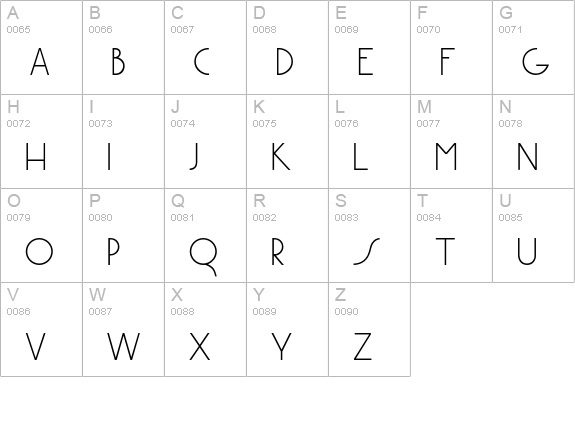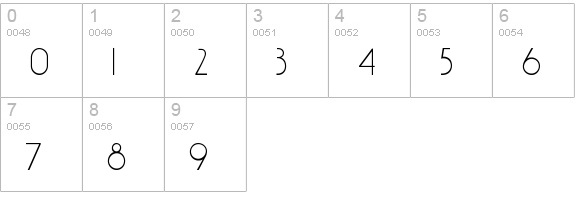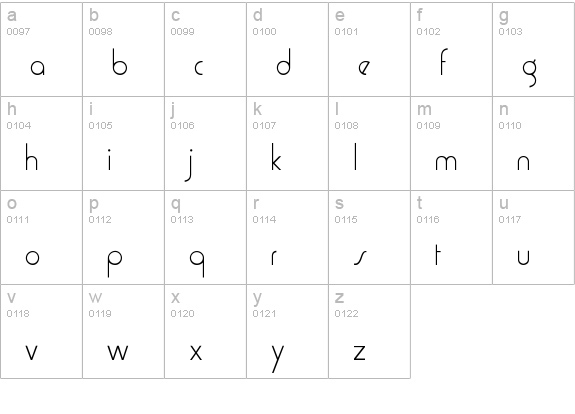
Harpers Font Details
Introducing Harpers, a captivating and versatile font that effortlessly blends elegance with modernity. This remarkable typeface is the perfect choice for those seeking to add a touch of sophistication to their projects. With its clean lines and graceful curves, Harpers exudes a timeless charm that is sure to captivate any viewer. What sets Harpers apart is its remarkable versatility. Whether you're designing a logo, creating a stunning headline, or simply adding a touch of class to your next project, Harpers can adapt to any situation with ease. Its carefully crafted letterforms are designed to be legible at any size, ensuring that your message is clear and impactful. But what truly sets Harpers apart is the fact that it is absolutely free. Yes, you read that right. Harpers can be freely downloaded from FontsMarket.com, allowing you to elevate your designs without breaking the bank. This generous offer allows designers of all levels to access this exceptional typeface and incorporate it into their work without any restrictions. Imagine the possibilities with Harpers. From elegant invitations to stylish branding, this font has the power to transform any design into a work of art. Its simplicity and effortless beauty make it a perfect choice for any project, whether it's a wedding invitation, a fashion magazine, or a website header. So why wait? Visit FontsMarket.com today and discover the beauty of Harpers font. With its timeless elegance and its availability as a free download, this font is a must-have for any designer looking to make a lasting impression. Elevate your designs to new heights with Harpers and watch as your creativity flourishes.